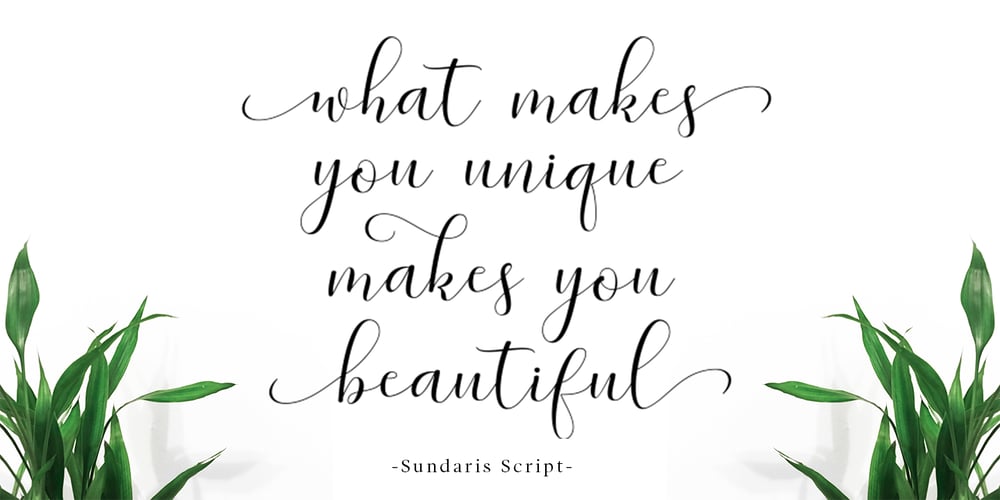
Sundaris Script Font Family was designed by Mulkan Nazir and published by Great Studio. Sundaris Script contains 1 styles and family package options. Sundaris Script is modern calligraphy design. This font is casual and pretty with swashes. Can be used for various purposes. such as logos, product packaging, wedding invitations, branding, headlines, signage, labels, signature, book covers, posters, quotes and more. Sundaris Script features OpenType stylistic alternates, ligatures and International support for most Western Languages is included. To enable the OpenType Stylistic alternates, you need a program that supports OpenType features such as Adobe Illustrator CS, Adobe Indesign & CorelDraw X6-X7, Microsoft Word 2010 or later versions. How to access all alternative characters using Adobe Illustrator: https://www.youtube.com/watch?v=XzwjMkbB-wQ Sundaris Script is coded with PUA Unicode, which allows full access to all the extra characters without having special designing software. Mac users can use Font Book , and Windows users can use Character Map to view and copy any of the extra characters to paste into your favorite text editor/app. How to access all alternative characters, using Windows Character Map with Photoshop: https://www.youtube.com/watch?v=Go9vacoYmBw If you need help or have any questions, please let me know. I’m happy to help ๐ Thanks & Happy Designing!